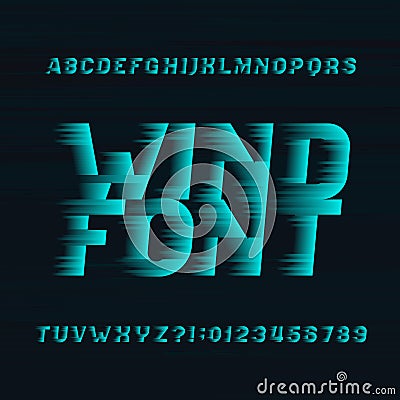
Wind Alphabet Vector Font. Speed Effect Type Letters And Numbers On A Dark Background.
Wind alphabet vector font. Speed effect type letters and numbers on a dark background. #104851447
Wind alphabet vector font. Speed effect type letters and numbers on a dark background. Stock vector typeset for your headers or any typography design.